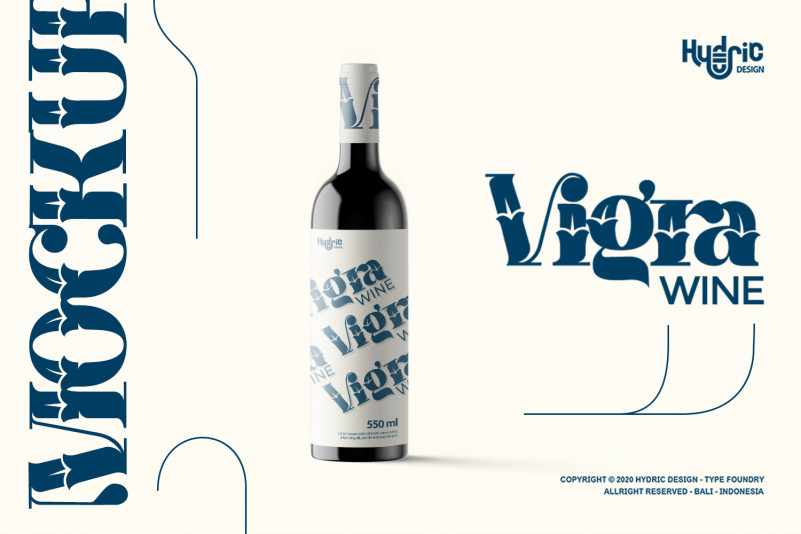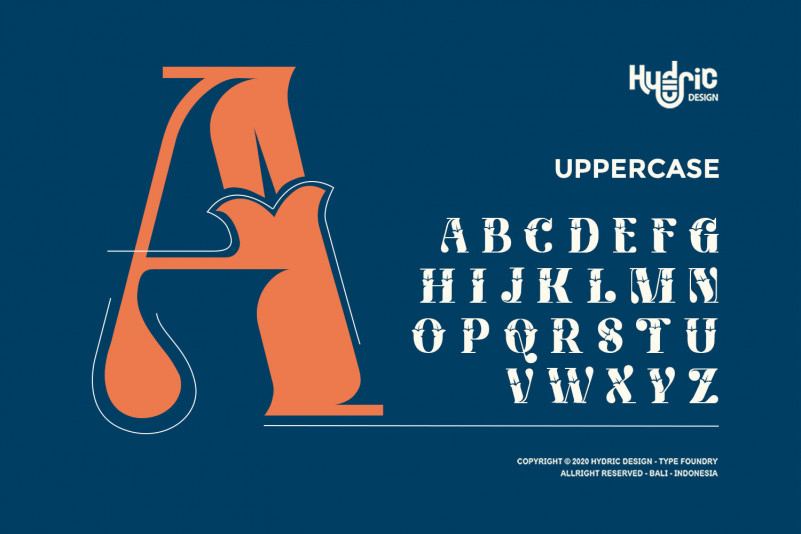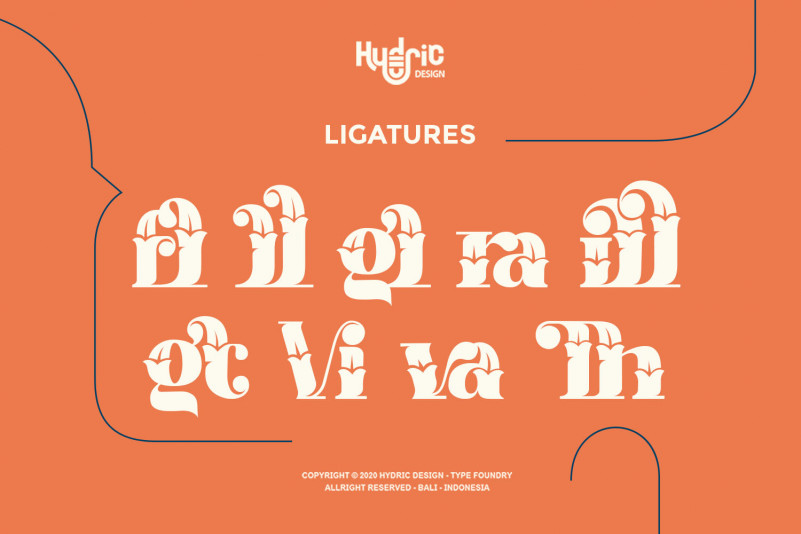
Kyra Vaglo Font
Kyra Vaglo Display Font
This typeface is a Unique font with floral ornament, inspired from Asian Skunk Cabbage, this beautiful font also perfect for your project, It can be used for various purposes such as logos, wedding invitations, headings, t-shirts, letterhead, signage, labels, news, posters, badges and so much more.